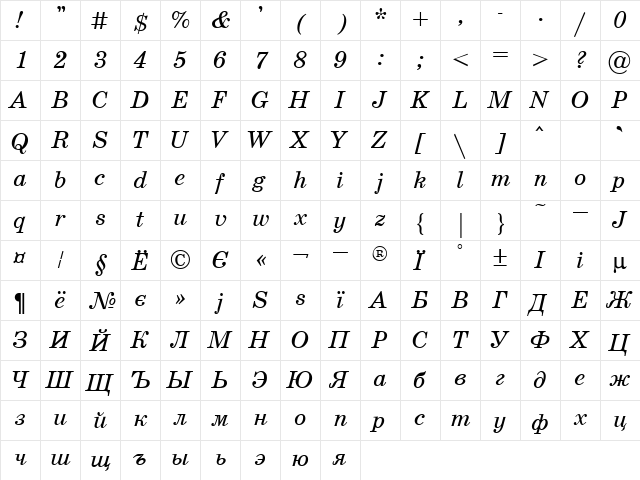
Shkolnaya Italic
Design Context for Shkolnaya Typeface
Shkolnaya takes a measured approach to typography — its balanced proportions and neutral character make it a reliable workhorse for both digital and print work. Its italic angle brings a sense of urgency and motion to the letterforms.
Pro Tip: Use Shkolnaya for emphasis, pull quotes, and subheadings where its slanted energy can add rhythm to the layout.